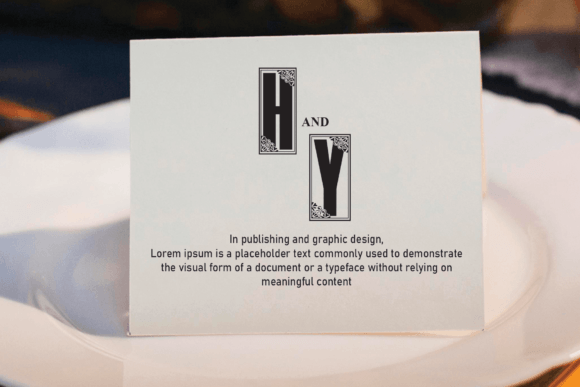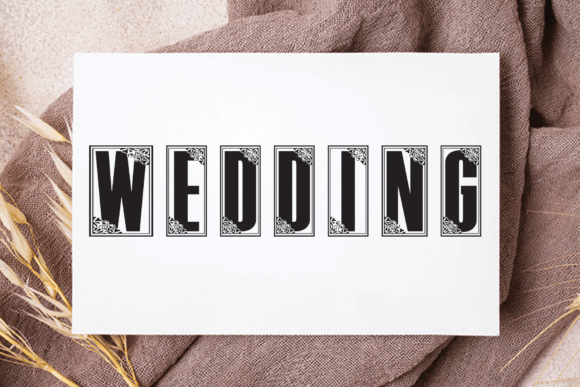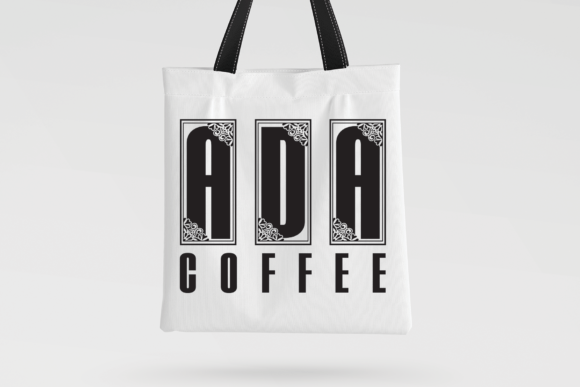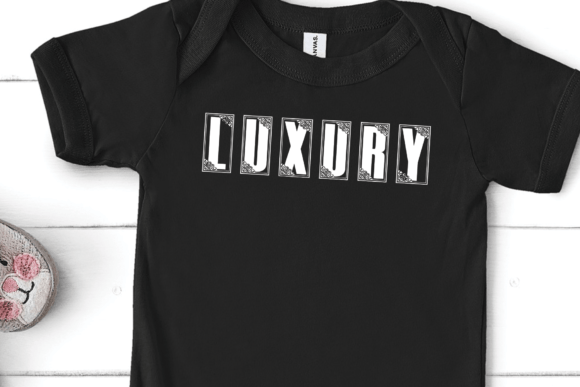
Envelope Font: Elevate Your Designs with Elegance and Sophistication
Are you looking for a font that can add a touch of elegance and sophistication to your designs? Look no further than the Envelope Font. This beautiful decorative font is perfect for a variety of projects, from wall hangings and wedding invitations to social media post logos, advertisements, product packaging, and more.
What is Envelope Font?
Envelope Font is a decorative font that features intricate and ornate lettering, reminiscent of traditional envelope designs. Its unique and stylish aesthetic makes it perfect for designers and crafters who want to add a touch of luxury and sophistication to their work.
Uses for Envelope Font
The versatility of Envelope Font makes it suitable for a wide range of projects, including:
- Wall Hangings: Create beautiful wall art with Envelope Font, perfect for home decor or as a gift.
- Wedding Invitations: Make your wedding invitations truly special with this elegant font.
- Social Media Post Logos: Stand out on social media with eye-catching logos and graphics featuring Envelope Font.
- Advertisements: Add a touch of sophistication to your ads with this beautiful font.
- Product Packaging: Elevate your product packaging with Envelope Font, perfect for luxury brands.
- Product Designs: Create stunning product designs, from labels to watermarks, with this versatile font.
- Invitations: Make your invitations, from birthday to graduation, truly special with Envelope Font.
- Stationery: Add a touch of elegance to your stationery, including notebooks, journals, and more.
Why Choose Envelope Font?
There are many reasons why Envelope Font is a top choice among designers and crafters:
- Unique and Stylish: Envelope Font features a unique and stylish aesthetic that will set your designs apart.
- Elegant and Sophisticated: This font adds a touch of elegance and sophistication to any design.
- Versatile: Use Envelope Font for a wide range of projects, from digital to print.
Tips for Using Envelope Font
Here are some tips for getting the most out of Envelope Font:
- Experiment with Colors: Try pairing Envelope Font with different colors to create unique and eye-catching designs.
- Mix and Match: Combine Envelope Font with other fonts to create interesting and dynamic designs.
- Pay Attention to Size: Make sure to adjust the size of your text to ensure it is legible and visually appealing.
- Use it Sparingly: Use Envelope Font sparingly to add a touch of elegance and sophistication to your designs.
Envelope Font is a beautiful decorative font that can elevate your designs with elegance and sophistication. Its versatility and unique aesthetic make it perfect for a wide range of projects, from wall hangings and wedding invitations to social media post logos and product packaging. Whether you’re a designer or crafter, Envelope Font is a great addition to your toolkit.